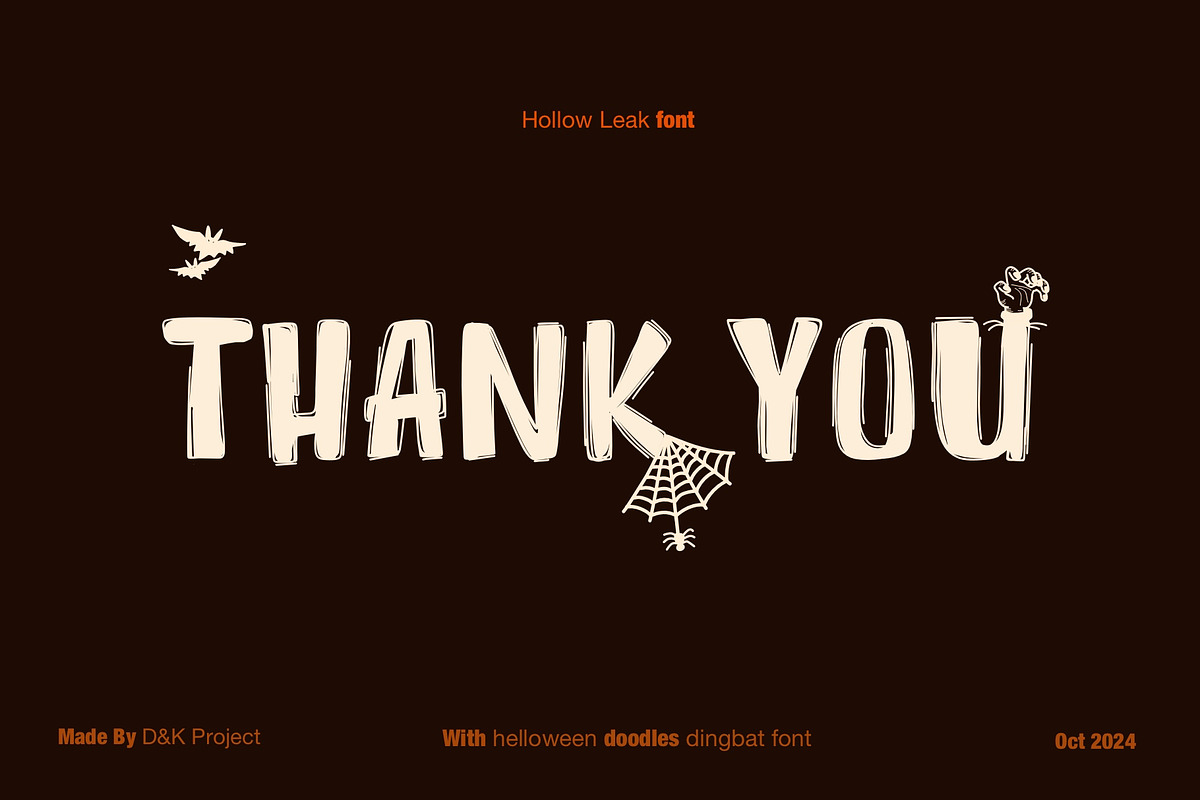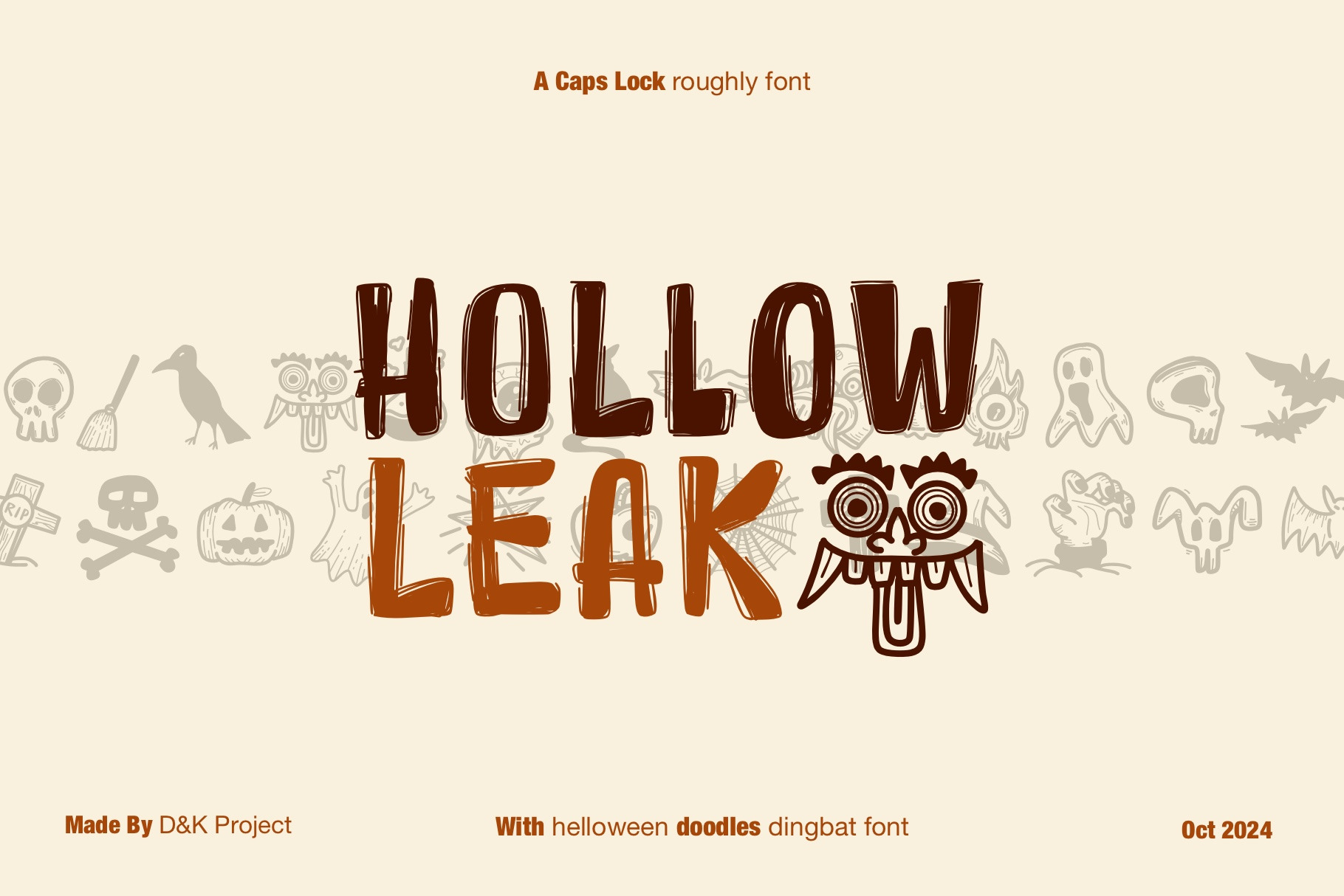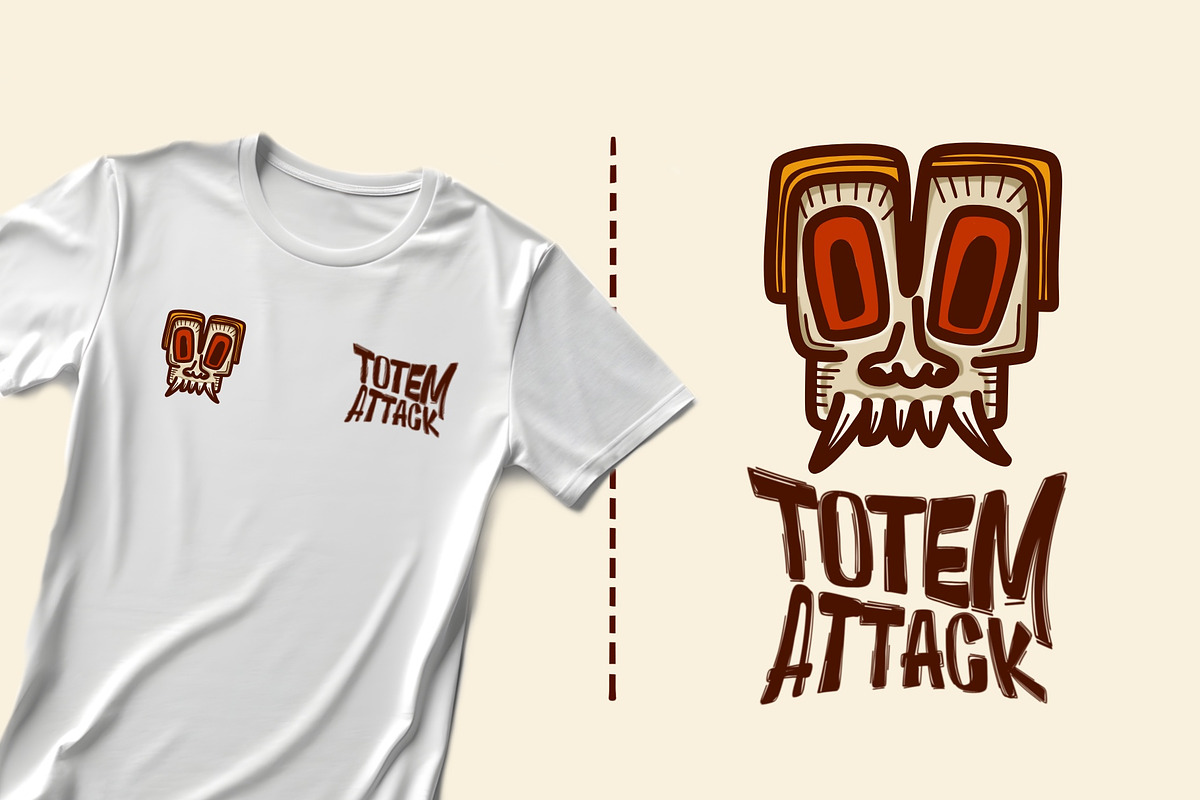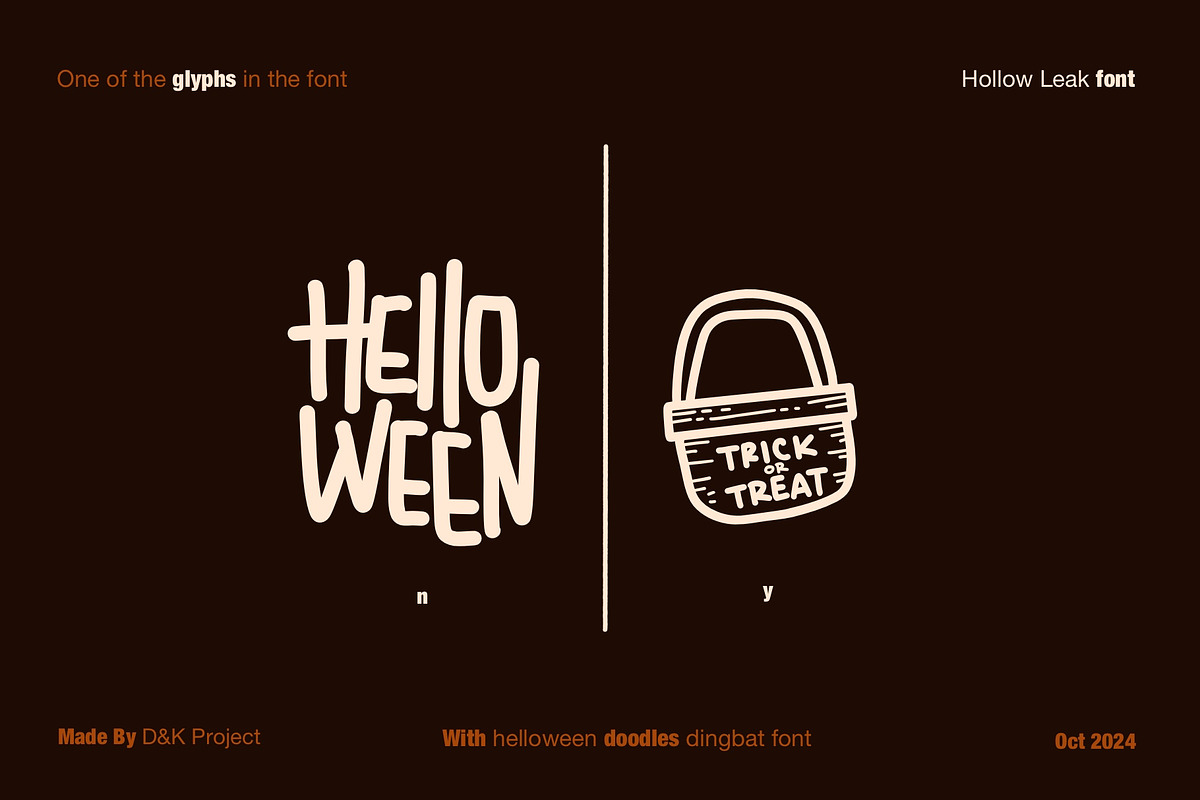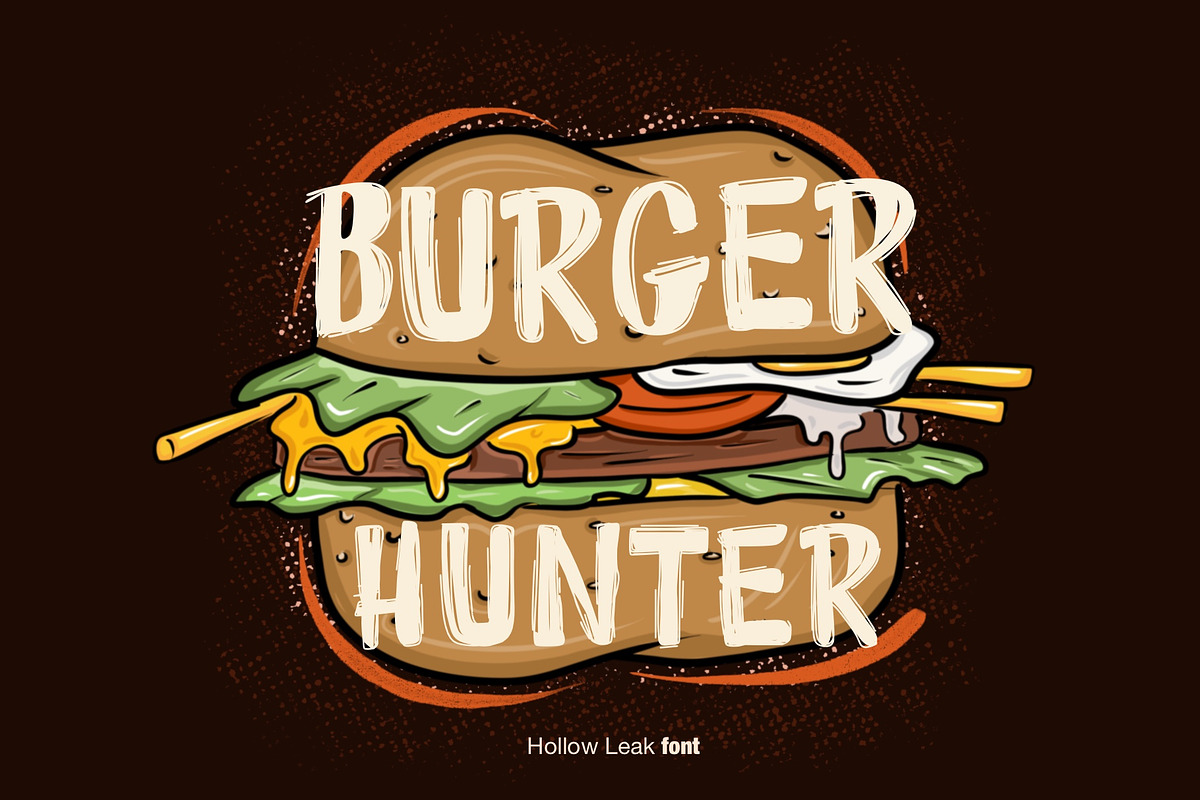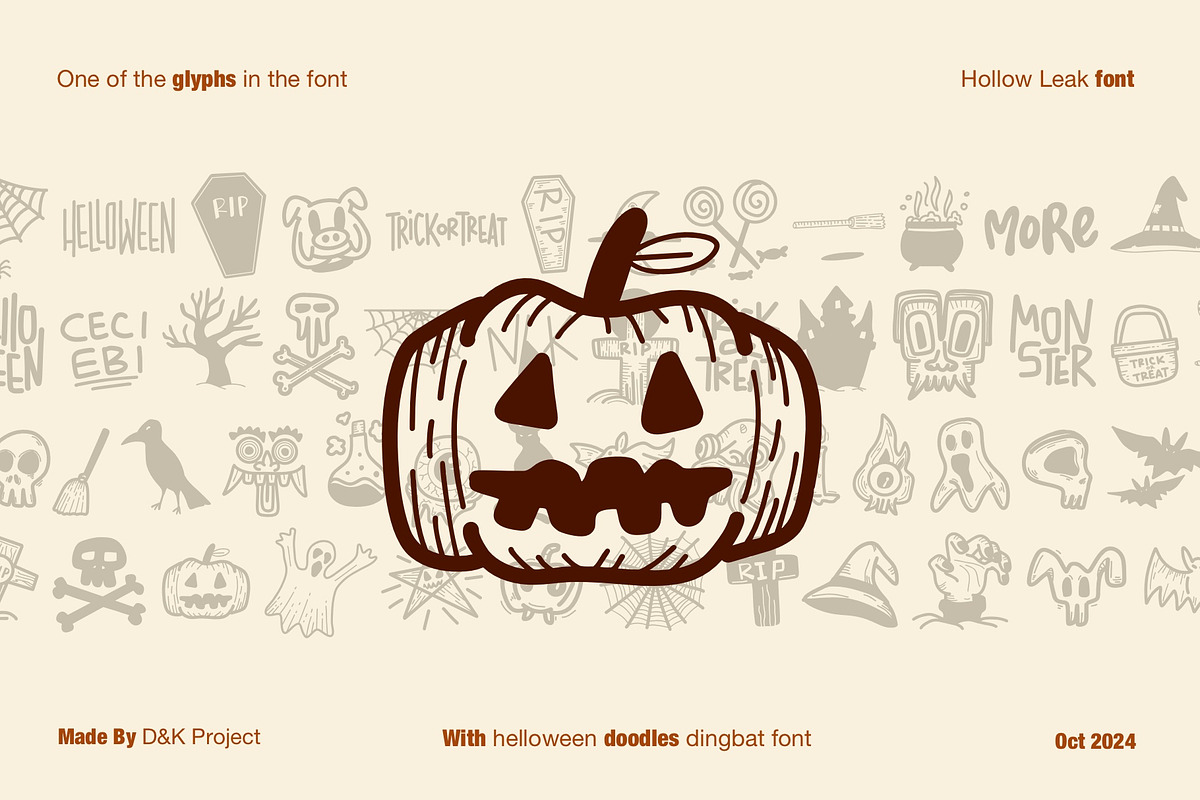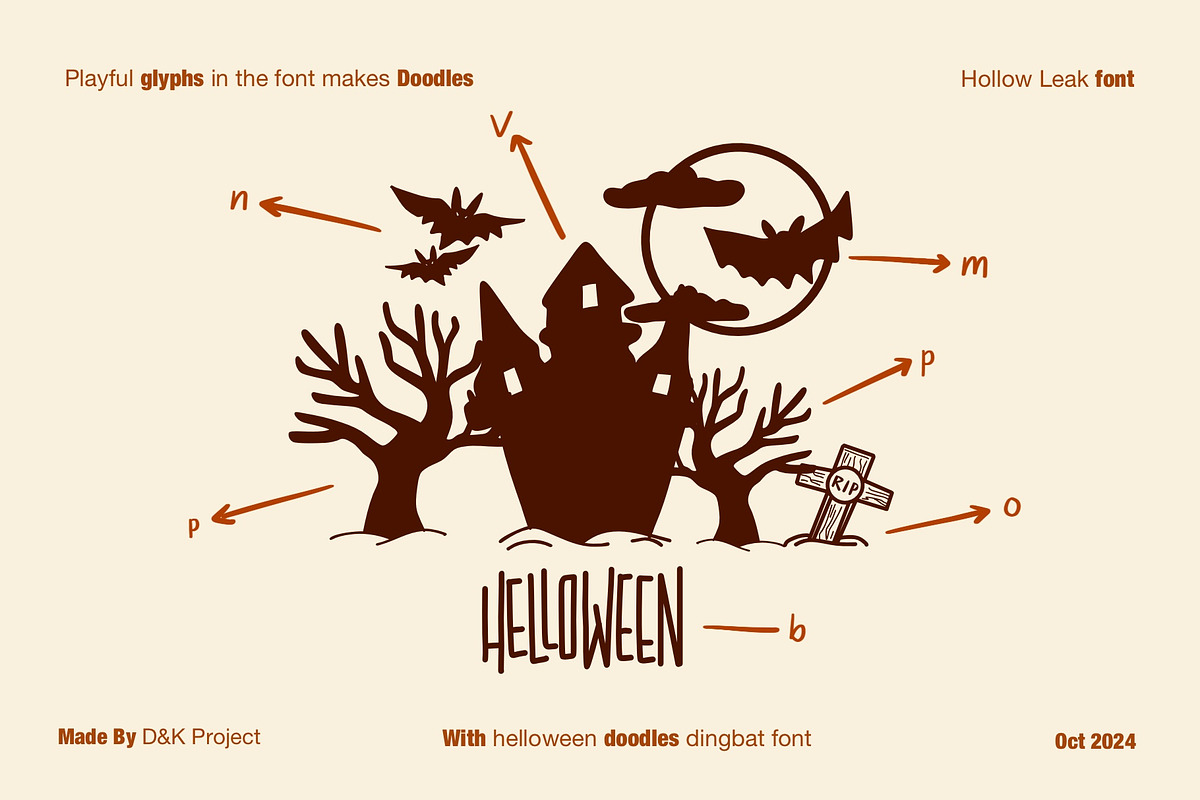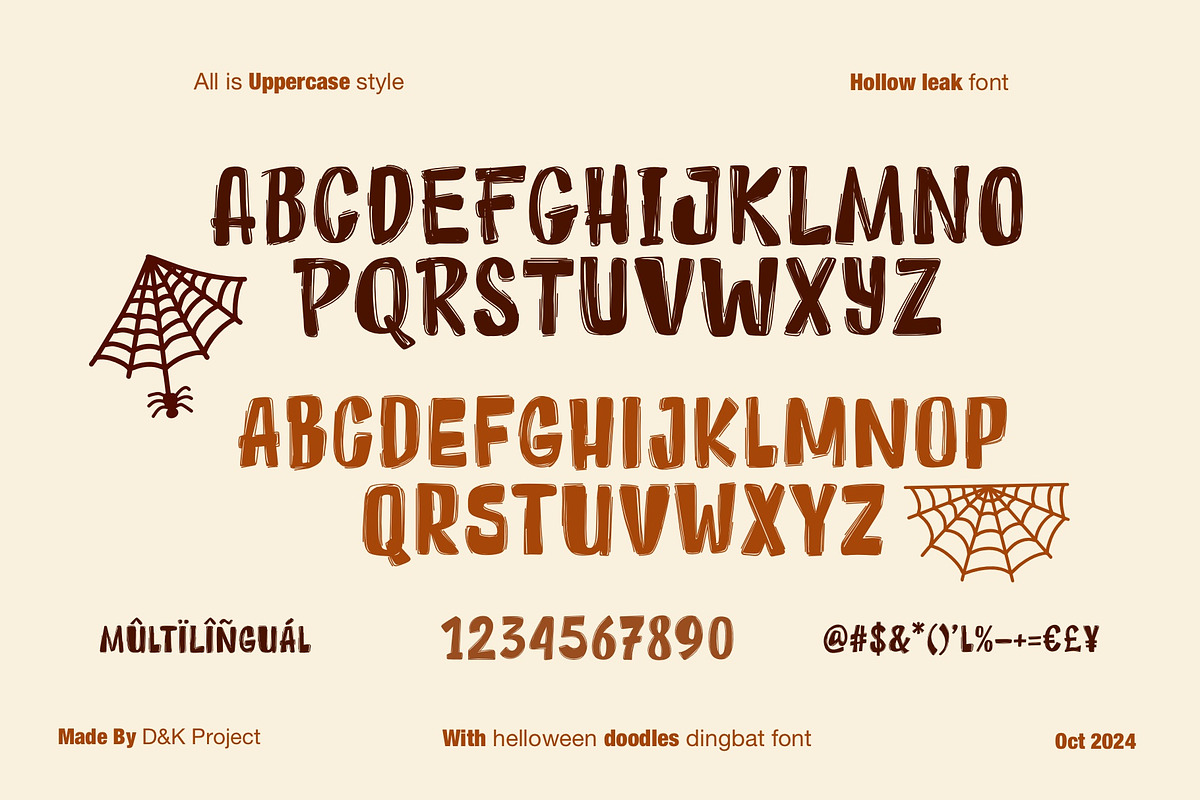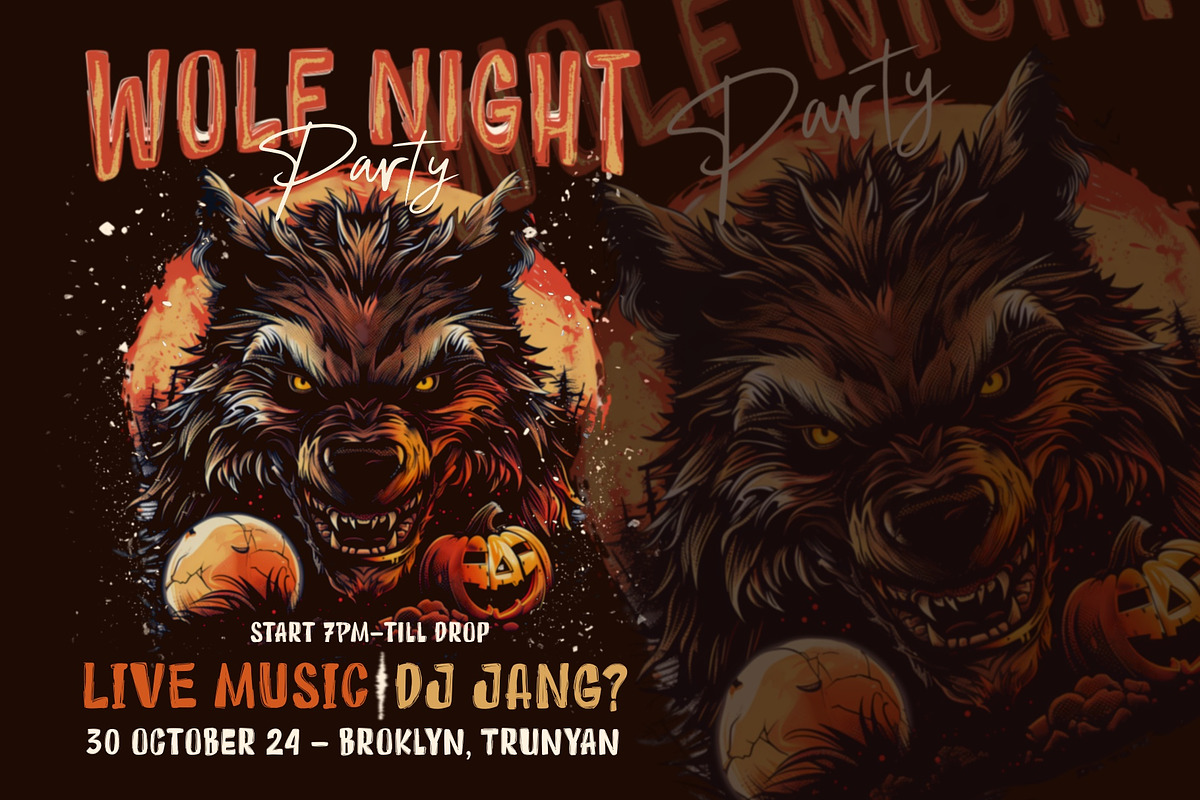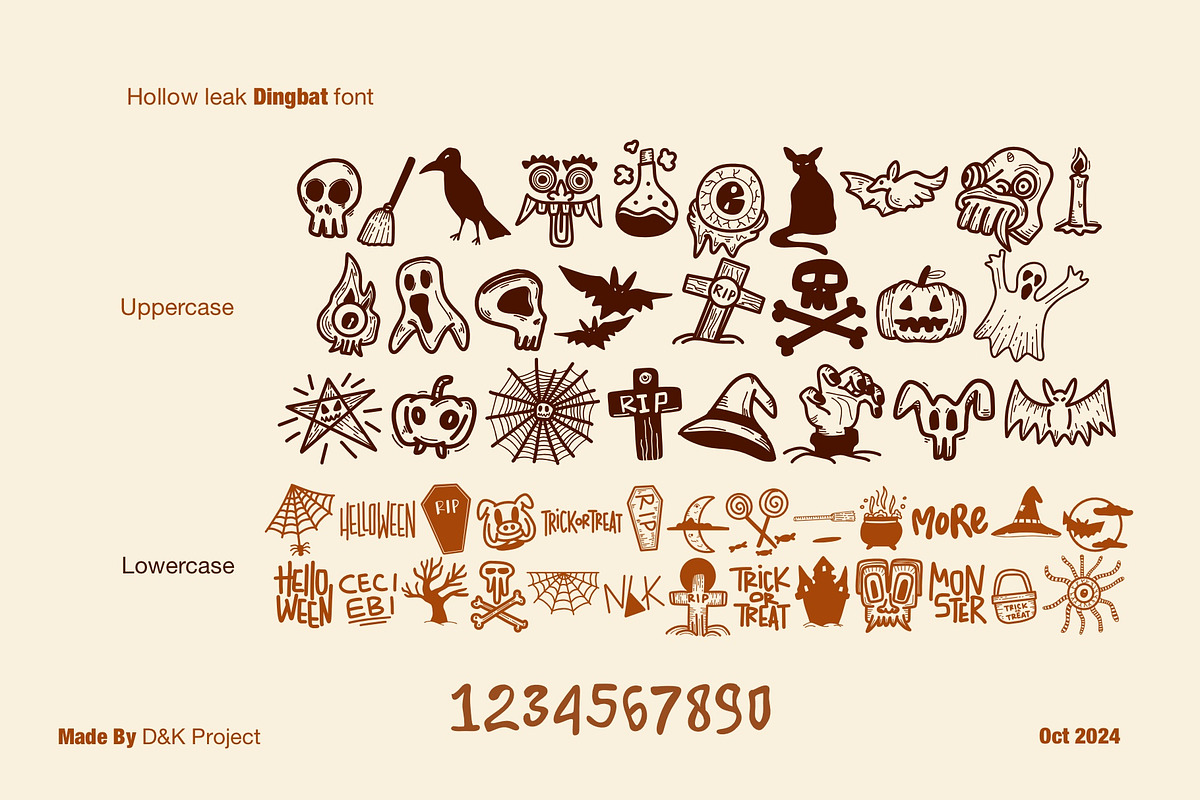
Hollow Leak Font and Dingbat
Hollow Leak is Bold Caps font with a dingbat doodles helloween is very unique and easy to used. this font can use for diplay and makes some doodle with our dingbat,